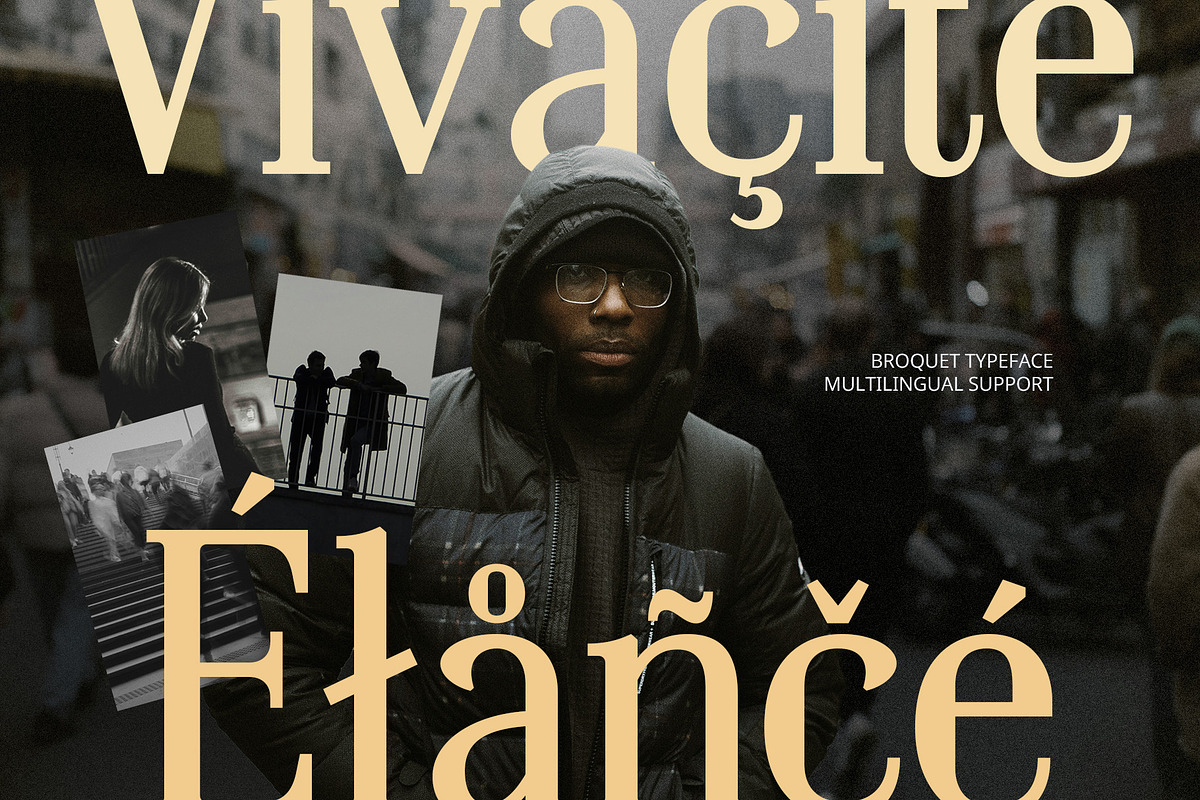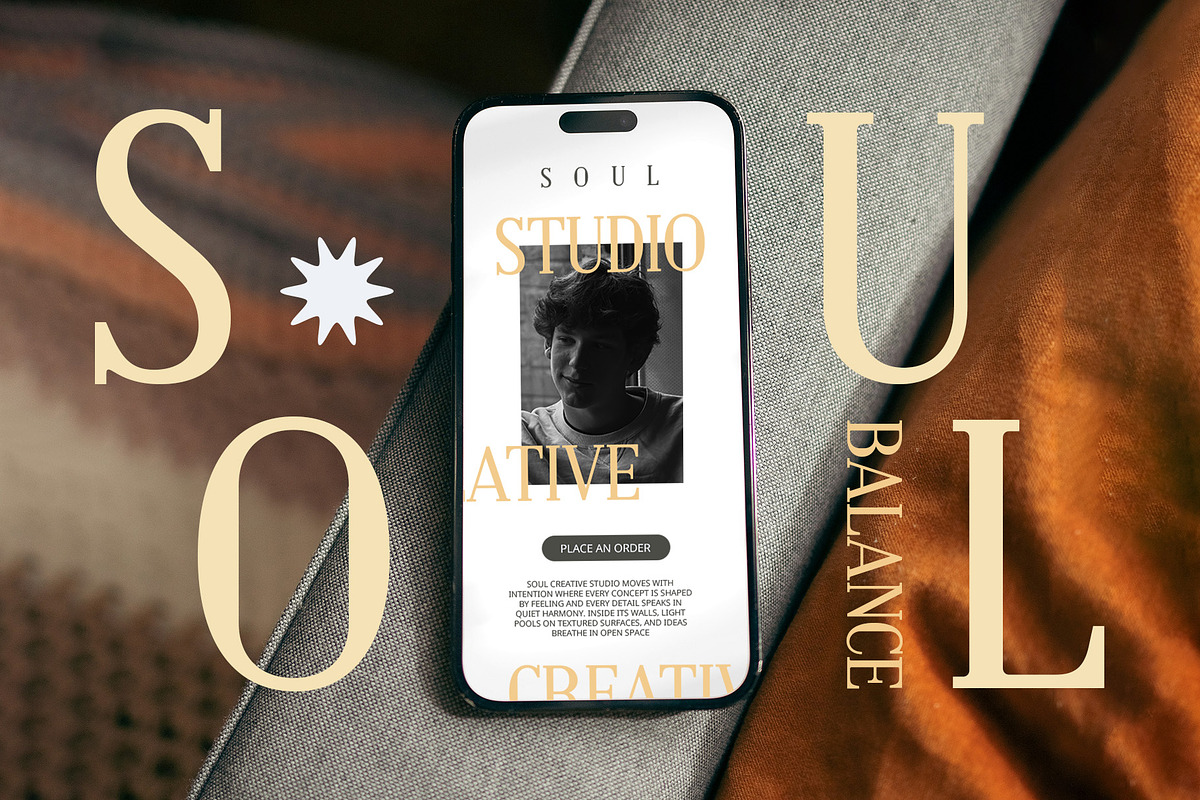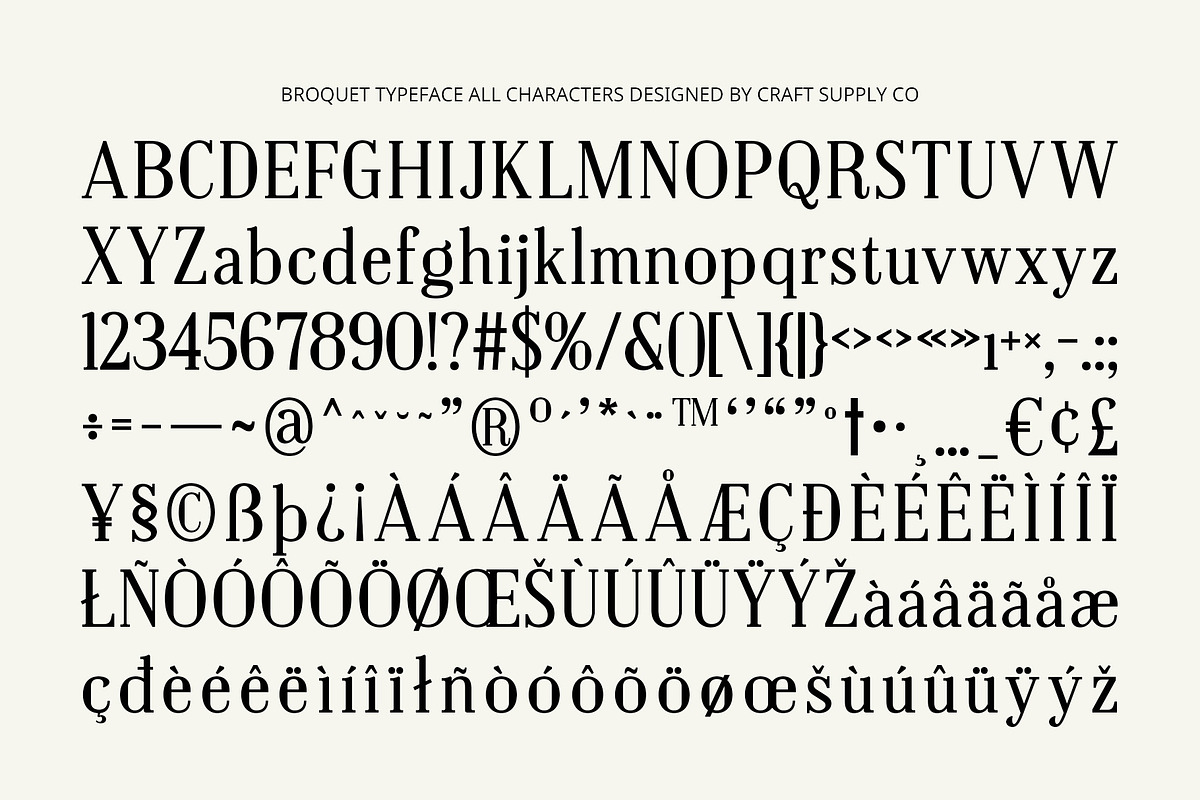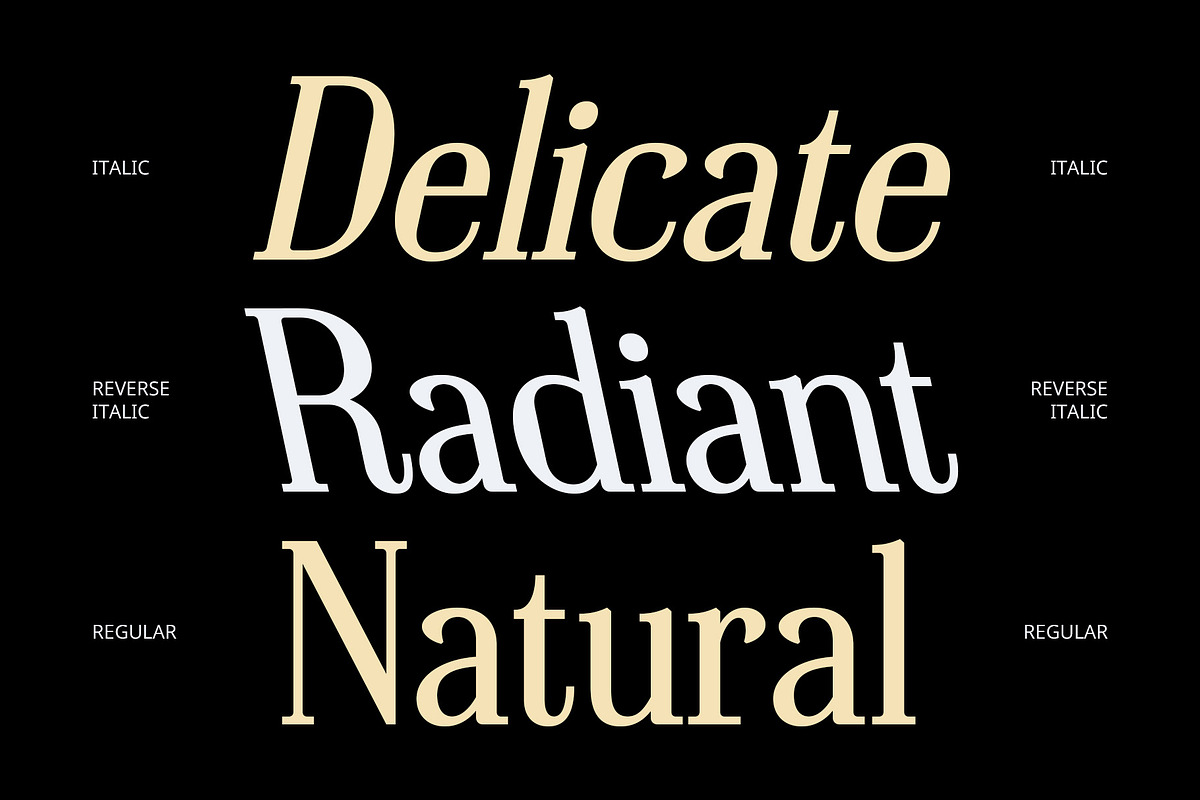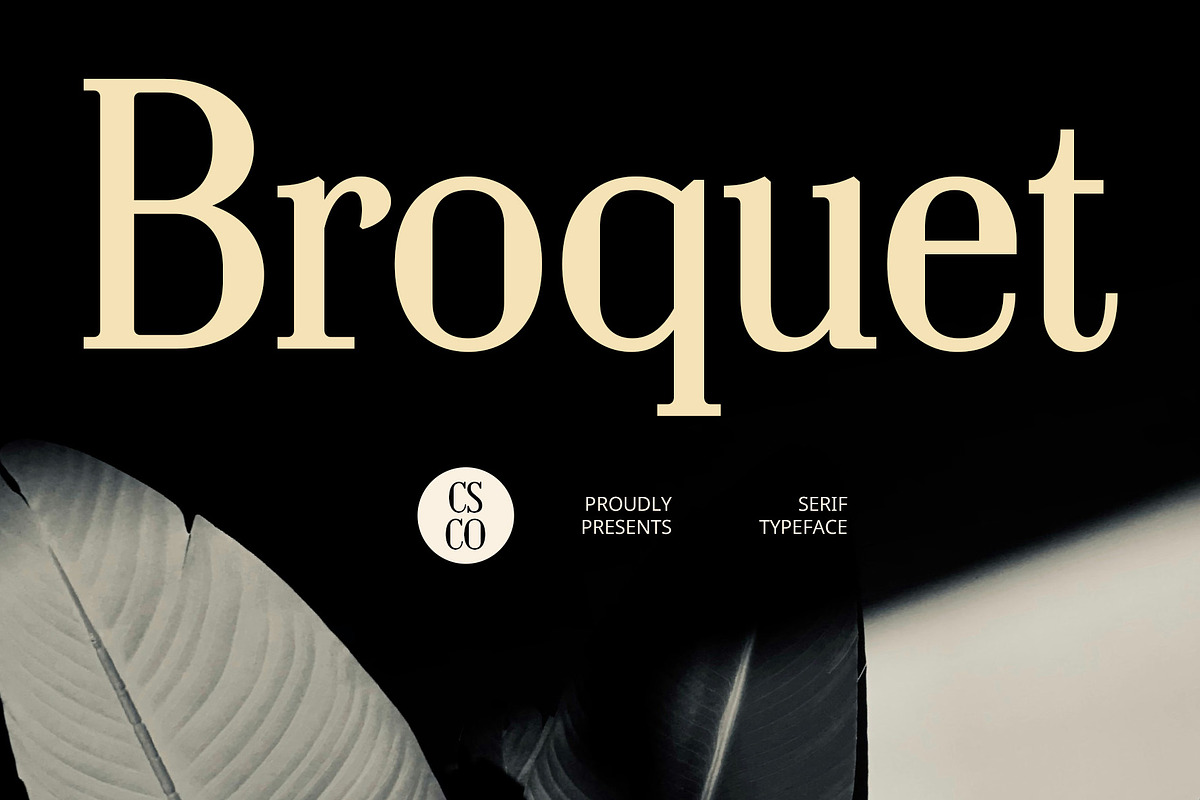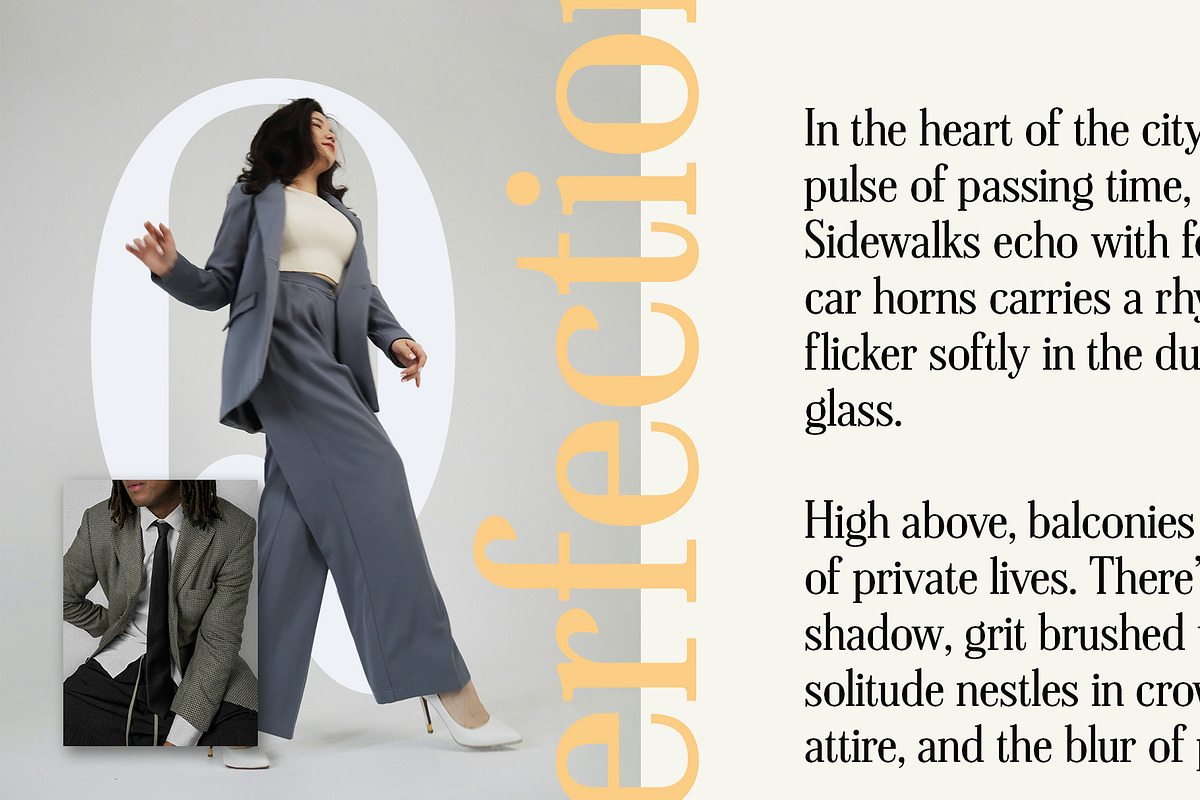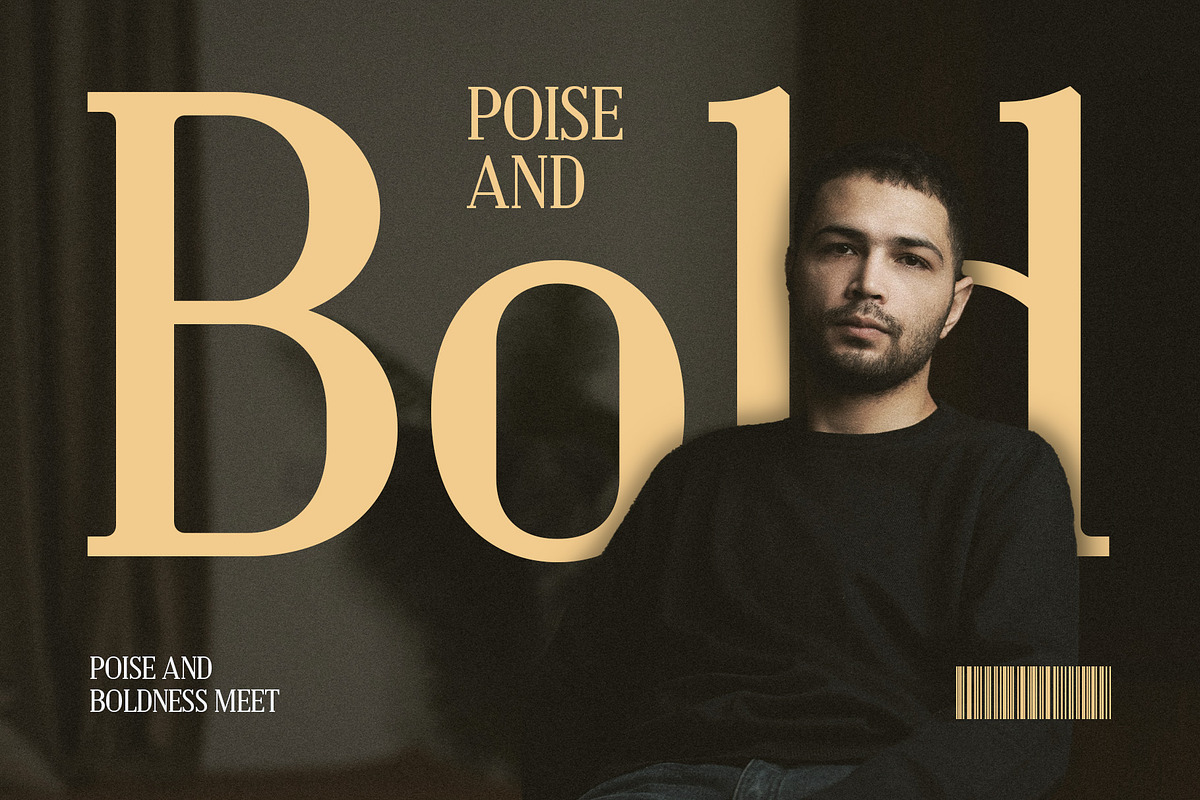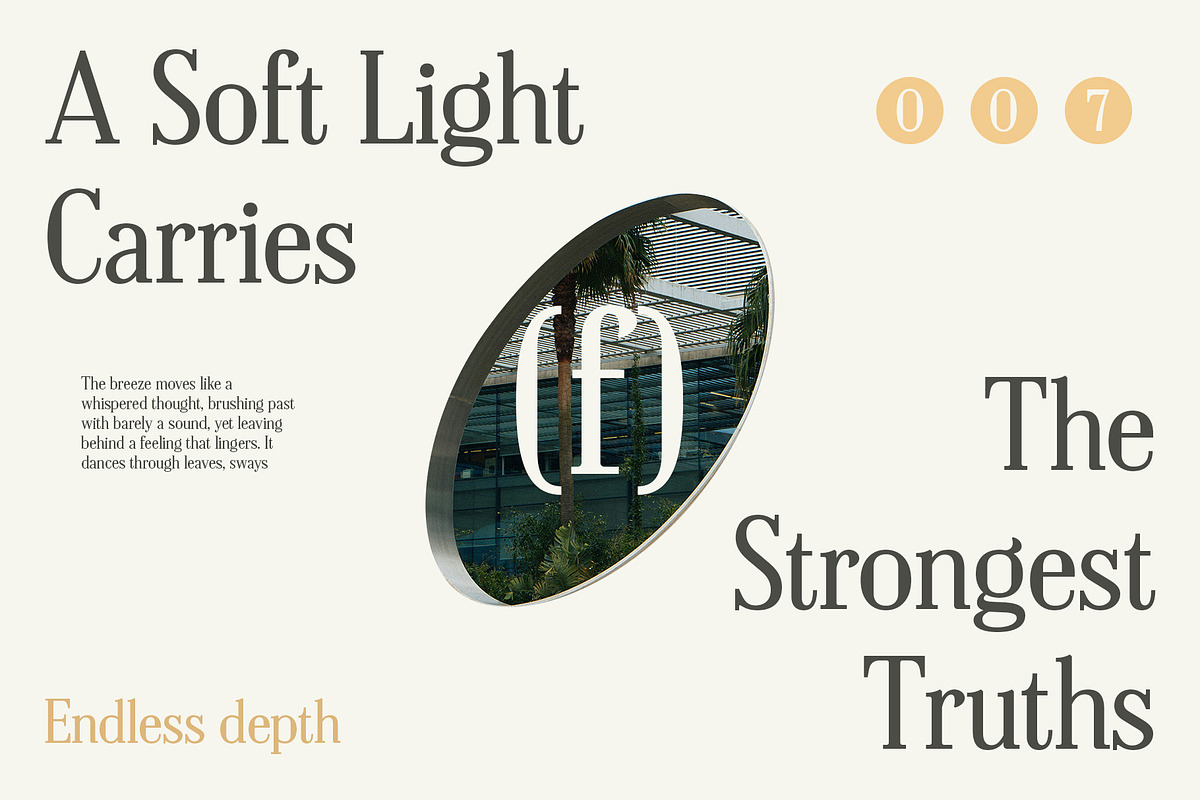
Broquet – Contemporary Font
Broquet – Contemporary Font: Timeless Elegance with a Modern Edge
Balanced Serif Design for Professional Appeal Broquet – Contemporary Font combines sharp, classic serifs with clean, modern letterforms to create a design that feels both refined and current. The careful balance of tradition and innovation makes it ideal for projects requiring professionalism and timeless sophistication.
Elegant Structure with High Readability The font’s meticulously crafted proportions and thoughtful spacing offer not only a visually pleasing look but also excellent legibility. Every character is designed for clarity, making Broquet an ideal choice for longer reading contexts such as magazines, websites, or professional reports. Its versatility allows it to work seamlessly in both digital and print formats without losing its distinctive voice.
Luxurious Feel for Premium Design Broquet radiates understated luxury through its poised and polished letterforms. The long, graceful serifs add a touch of classic sophistication, while the clean lines evoke a minimal and modern impression. This makes it especially suitable for fashion lookbooks, upscale product packaging, and high-end brand identities that require a balance between tradition and innovation.
Versatile for Modern Creative Use Despite its classic roots, Broquet’s modern touch makes it adaptable to today’s design needs. From sleek logos to editorial headlines and web interfaces, it delivers clarity, style, and a strong sense of identity across a wide range of creative applications.
- Broquet Regular
- Broquet Italic
- Broquet Reverse Italic